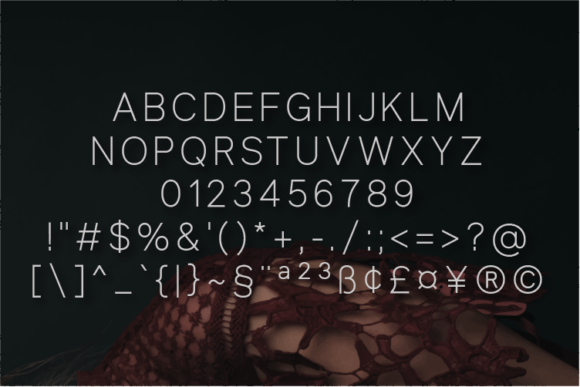
Introducing Colbey Regular Font: Elevate Your Design with Elegance
In the world of typography, a font can make all the difference in the aesthetic and effectiveness of a design. For designers and crafters looking for a modern, sophisticated touch, Colbey Regular Font is an excellent choice. This elegant contemporary sans serif font boasts soft edges, clean lines, and a harmonious appearance that makes it perfect for a wide range of applications.
What is Colbey Regular Font?
Colbey Regular is a thoughtfully designed sans serif font that combines the simplicity of modern typography with a unique elegance. Its soft edges give it a distinctive look that sets it apart from more traditional fonts. The design focuses on clean and stylized geometry, ensuring that the font remains clear and readable, whether it’s used for body text or headlines.
Key Features of Colbey Regular Font
- Elegant and Contemporary Design: Colbey Regular Font features a modern sans serif design with a touch of elegance, making it suitable for designs that require a sophisticated look.
- Soft Edges: The soft edges of the font provide a unique texture that can add depth and interest to any design.
- Clean and Stylized Geometry: The font’s geometry is carefully crafted to ensure clarity and readability, making it versatile for use in both texts and headlines.
- Harmonious Appearance: Colbey Regular offers a balanced and harmonious look that can enhance the overall aesthetic of a design, making it more engaging and visually appealing.
Use Cases for Colbey Regular Font
The versatility of Colbey Regular Font makes it suitable for a variety of design projects. Here are some of the best use cases:
- Branding: Create a lasting impression with a font that exudes elegance and professionalism. Colbey Regular can be a great part of your brand’s typography.
- Logos: The unique and stylish appearance of Colbey Regular makes it perfect for logos that need to stand out while still conveying a sense of sophistication.
- Web Design: Enhance your website’s typography with a font that is both modern and readable. Colbey Regular can improve user experience and make your content more engaging.
- Print Design: Whether it’s for brochures, posters, or business cards, Colbey Regular can add a touch of elegance to any print material.
Why Choose Colbey Regular Font?
Choosing a font for a design project can be overwhelming with the numerous options available. However, Colbey Regular Font stands out for several reasons:
- Versatility: Its clean design and elegant look make it suitable for a wide range of applications, from digital to print.
- Readability: Despite its stylized appearance, Colbey Regular maintains high readability, making it practical for use in body text as well as headlines.
- Uniqueness: The soft edges and harmonious appearance of the font ensure that your design will have a distinctive look that can help it stand out.
Colbey Regular Font is a versatile and elegant sans serif font that can elevate your design projects with its unique and sophisticated look. Whether you’re a designer working on a client’s branding or a crafter looking for the perfect typography for your handmade goods, Colbey Regular is an excellent choice. Its clean lines, soft edges, and harmonious appearance make it suitable for a variety of applications, ensuring that your designs are both visually appealing and effective.